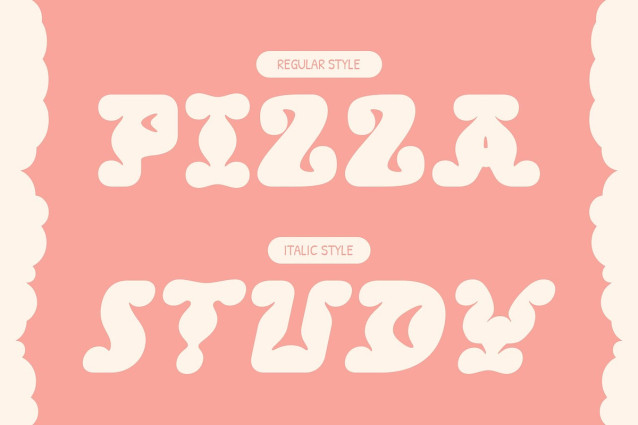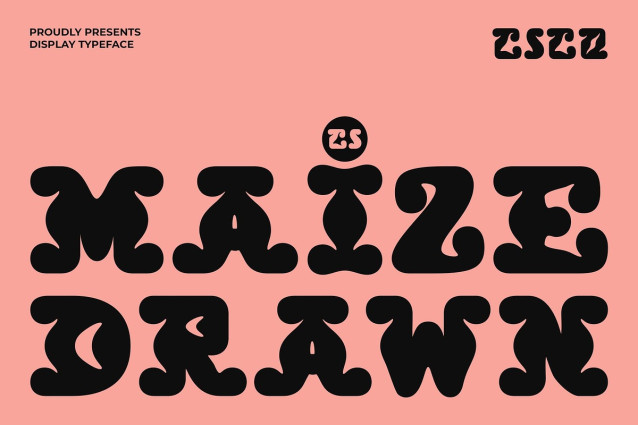
CS Maize Drawn Font
CS Maize Drawn Font is a display font featuring bold, clean, and decorative letterforms enhanced with a subtle drawn effect. Each character maintains clarity and readability while conveying a striking, artistic presence, making it ideal for designs that need to stand out.
Handmade Charm with Creative Flair The drawn texture adds a handcrafted, creative touch, giving the font a distinctive personality. Its expressive forms combine precision with artistic freedom, allowing designers to infuse their projects with originality and character.
Perfect for Bold and Creative Projects From posters and logos to product packaging and branding, this unique and expressive font works beautifully wherever visual impact and artistic uniqueness are required. Its bold presence and decorative appeal make it especially effective for projects that aim to communicate strength, creativity, and style.
Versatile and Memorable This handmade and creative font balances boldness with artistic detail, ensuring it performs well in both display and large-scale applications. Its combination of readability and decorative flair makes it a versatile tool for designers seeking a unique, expressive, and visually engaging typeface.
A Typeface That Stands Out By merging bold, structured forms with a creative hand-drawn effect, this decorative and artistic font delivers a font that is both visually powerful and uniquely expressive. It’s an ideal choice for designers looking to make a memorable statement.